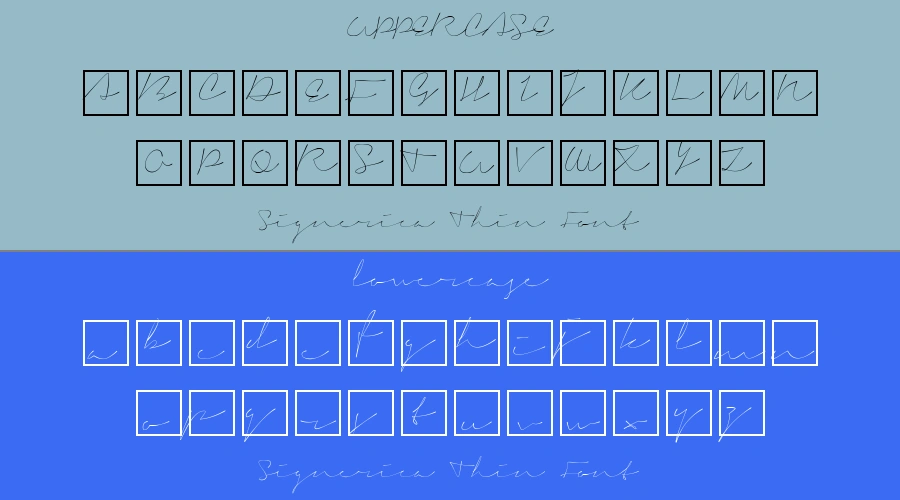
About Signerica Thin Font
Designed with precision, Signerica Thin Font merges ink flow effects with visual appeal in every character. This versatility makes it particularly effective for legal documents, where craftsmanship and practical utility directly impact communication quality. Each letterform demonstrates meticulous craftsmanship.
Technical excellence shines through elements like rounded apexes and small caps, enhancing typographic versatility. In classic layouts settings, Signerica Thin Font proves its worth through superior cross-platform compatibility. The thoughtful execution of joint detail and artistic merit ensures professional results.